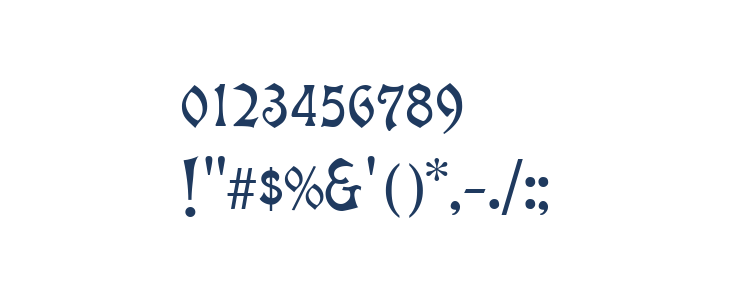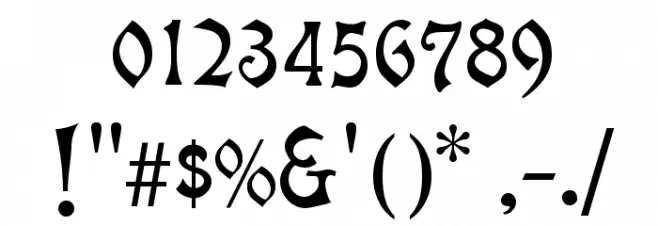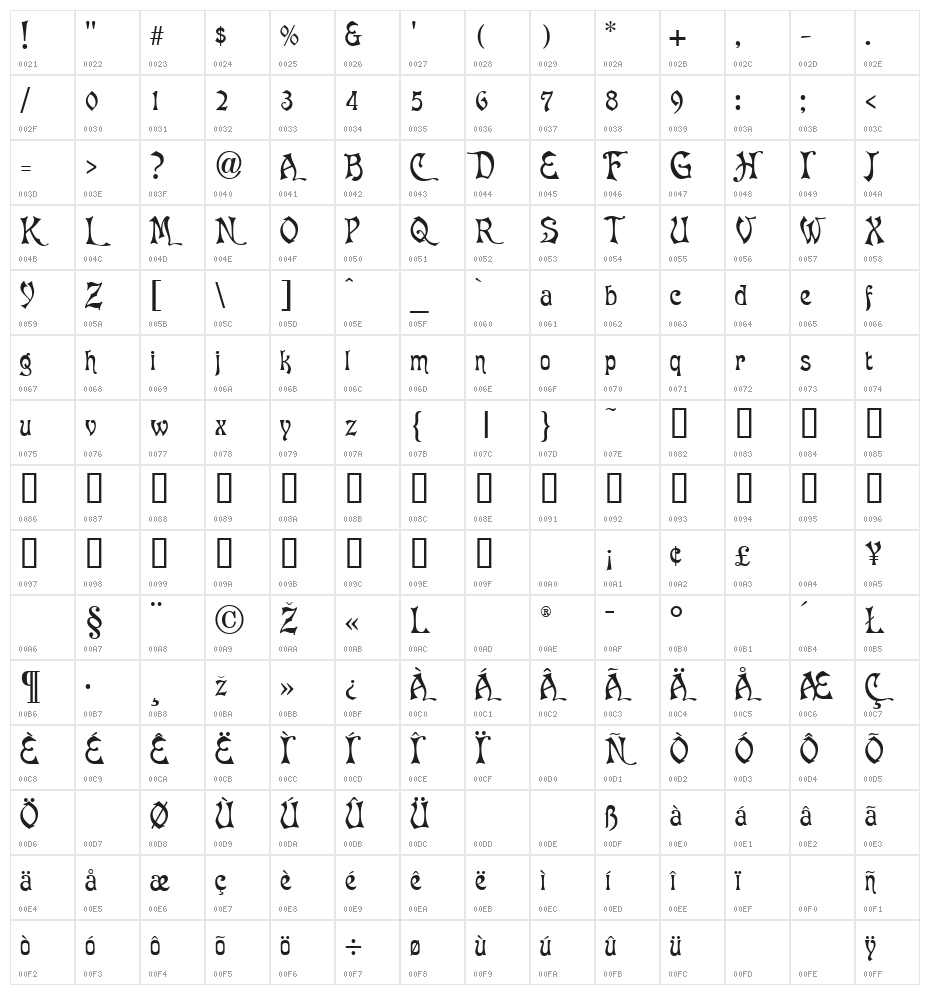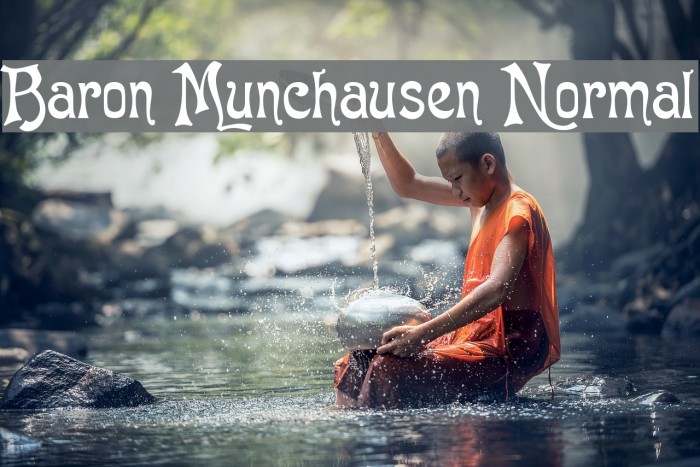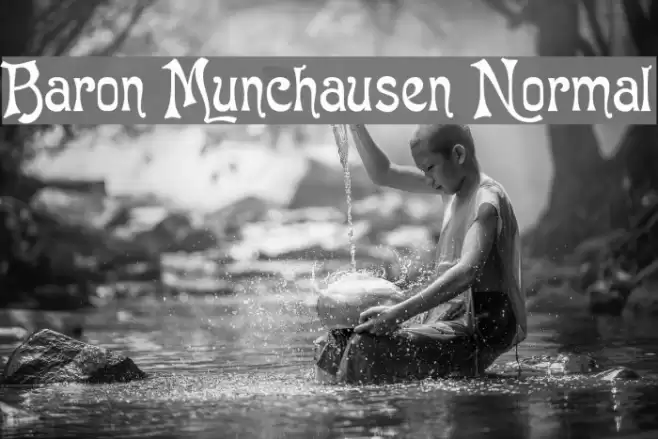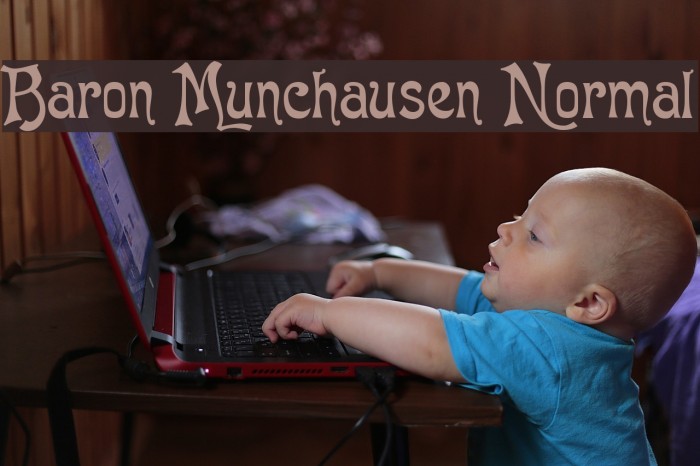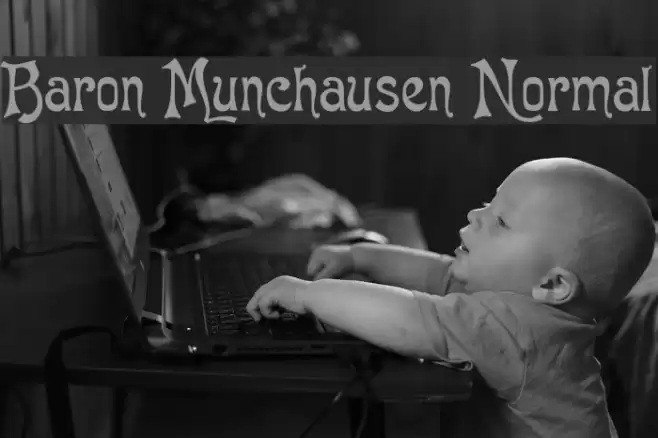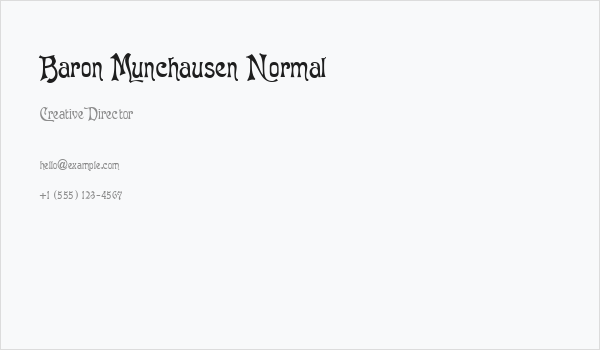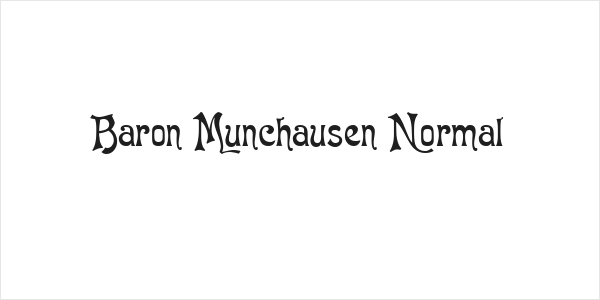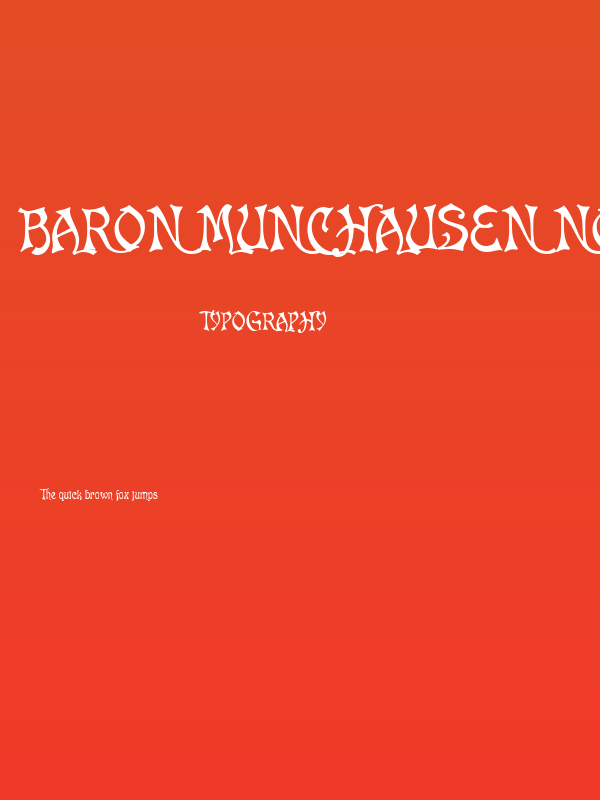
Baron Munchausen Normal Font
Baron Munchausen Normal Description
This font features a distinctive and ornate style, characterized by its intricate and decorative letterforms. The uppercase letters exhibit a bold and dramatic flair, with exaggerated serifs and flourishes that give it a medieval or fantasy-like appearance. The lowercase letters maintain a similar aesthetic, with unique curves and angles that add to its overall charm. The numerals are consistent with the font's elaborate style, making them stand out with their artistic design. Special characters are equally ornate, ensuring a cohesive look across all glyphs. This font is ideal for projects that require a touch of elegance and historical flair.
| Proposed Projects | Ideal for fantasy-themed designs, historical event invitations, book covers, and decorative posters. |